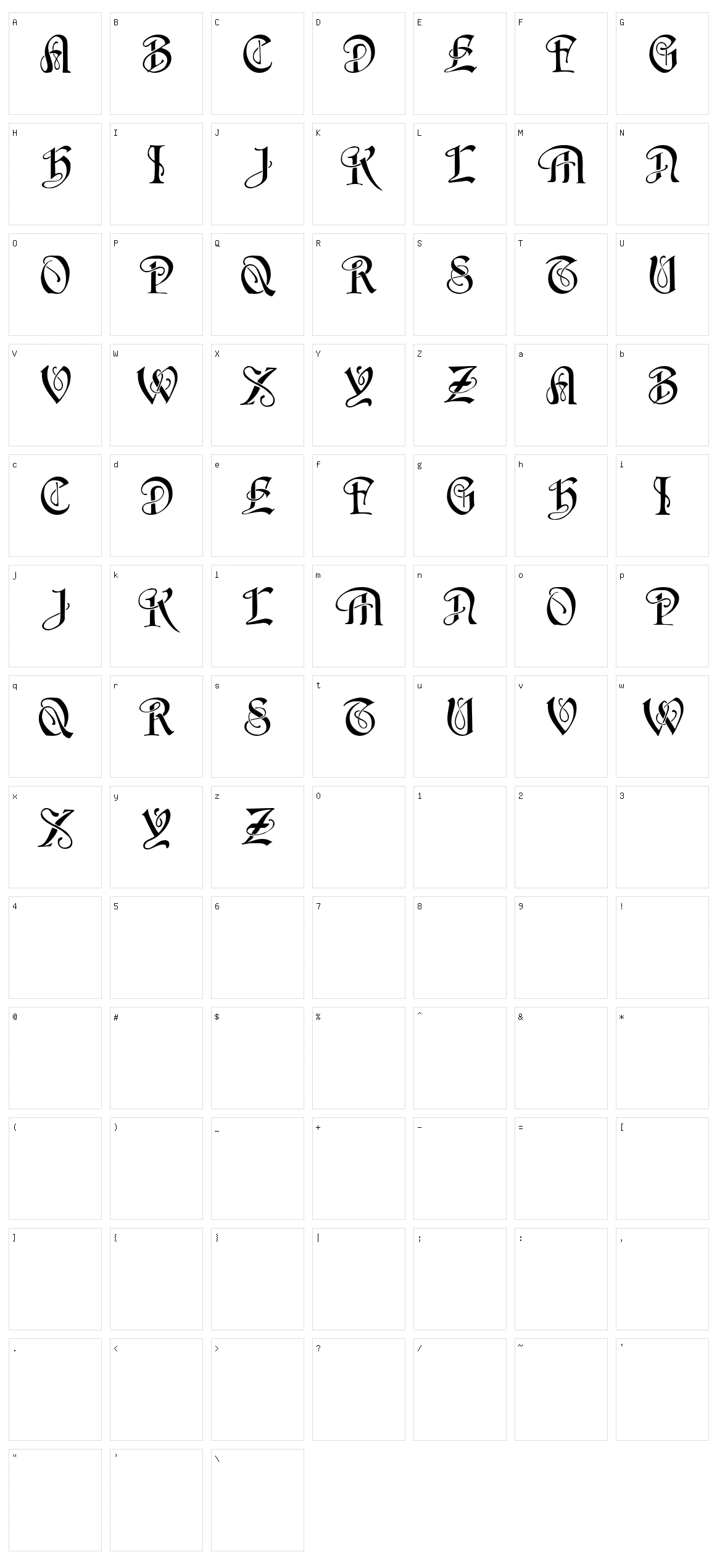
Horst
Designed by: David Rakowski
Category: Initials & Gothic
Horst Caps is a font that was named after a former student of mine from Stanford University, simply because I CAN, and because I no longer teach there. It is in the Art Nouveau style, and consists of a set of script capital letters with fairly substantial curly-Q's. This version supplants an earlier version that lacked I, X and Y.
Like, Horst Caps is another one of those totally radical cool neat gnarly bite the big one boy do I have to go to the bathroom now thingies from the really weird but oh so hip not a dry pair of pants in the house dudes at Bug-Bytes, somewhere in the middle of Massachusetts, where they keep all the trees and lakes and where the mosquitoes for everywhere else originate.